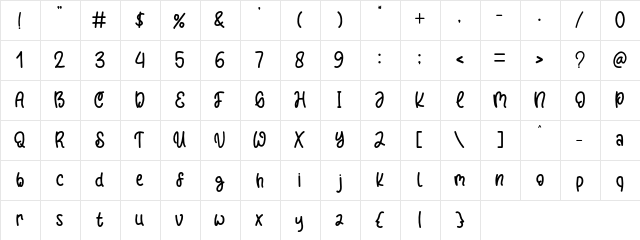
Sweet Watermelon Regular
Design Context for Sweet Watermelon Typeface
Sweet Watermelon is a composed and adaptable typeface that performs quietly and consistently across a wide range of design contexts.